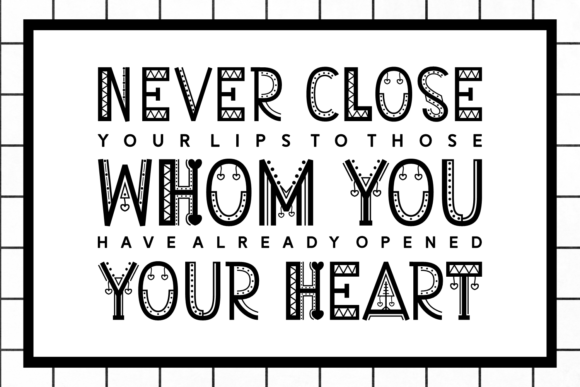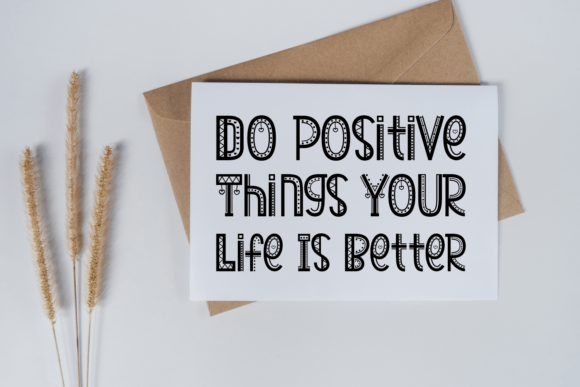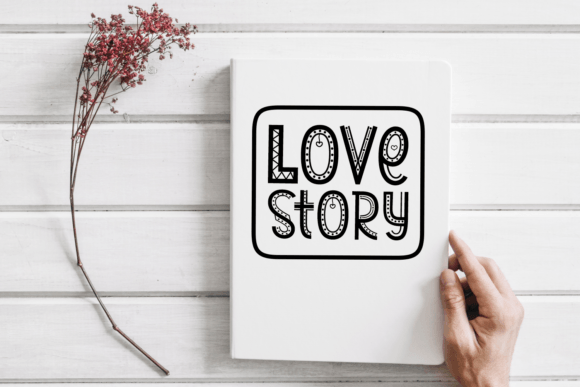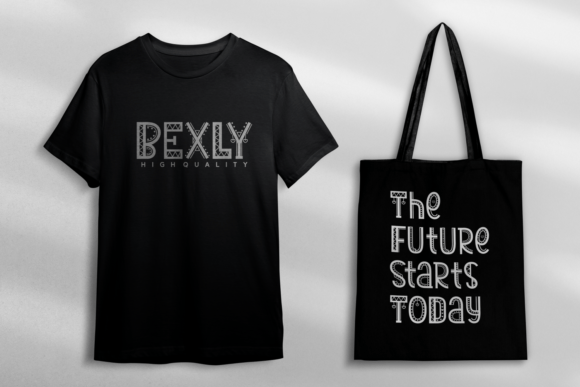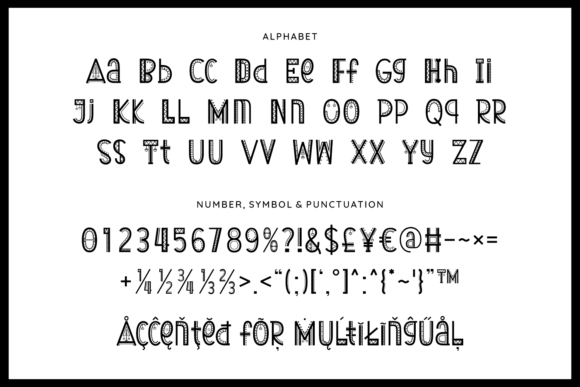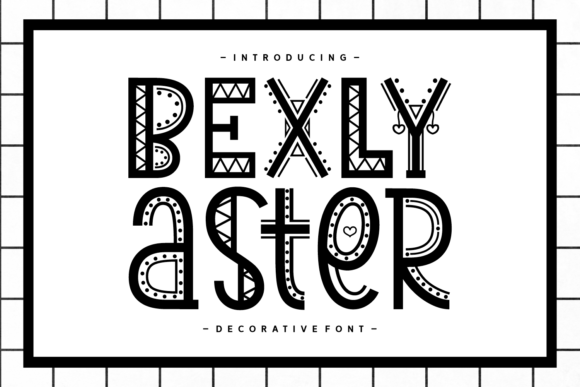
The Bexly Aster Font: A Playful and Stylish Decorative Font for Creative Projects
I’ll never forget the time I was working on a fabric print design for a client’s baby shower, and I just couldn’t seem to find the perfect font. The project required something playful, yet elegant, and I spent hours scouring the internet for the ideal match. That’s when I stumbled upon the Bexly Aster font, and it instantly became my go-to choice. In this article, I’ll share my experience with this lovely and unique decorative font, and explore its features, uses, and alternatives.
An Honest Review of Bexly Aster
- ✨ Unique and eye-catching design with cute ornamental details
- ✅ Highly versatile and suitable for various creative projects, such as fabric prints, book covers, invitations, and more
- 💫 Supports OpenType features, glyphs, and stylistic alternates, making it perfect for custom typography designs
- 🎨 Works beautifully in different colors and textures, adding an extra layer of creativity to your designs
While Bexly Aster is an amazing font, there are a few things to keep in mind:
- ⚠️ Some users might find the ornamental details a bit too playful for certain projects, such as formal events or corporate branding
- 🤔 The font may not be the best choice for body text or long paragraphs, as it’s designed primarily for headlines and titles
A Practical Guide to Using Bexly Aster
The Backstory Behind Bexly Aster
According to its creators, Bexly Aster was inspired by the beauty of botanical illustrations and the playfulness of children’s book fonts. The designers aimed to craft a font that would bring a touch of whimsy and elegance to any project, while still being highly legible and versatile.